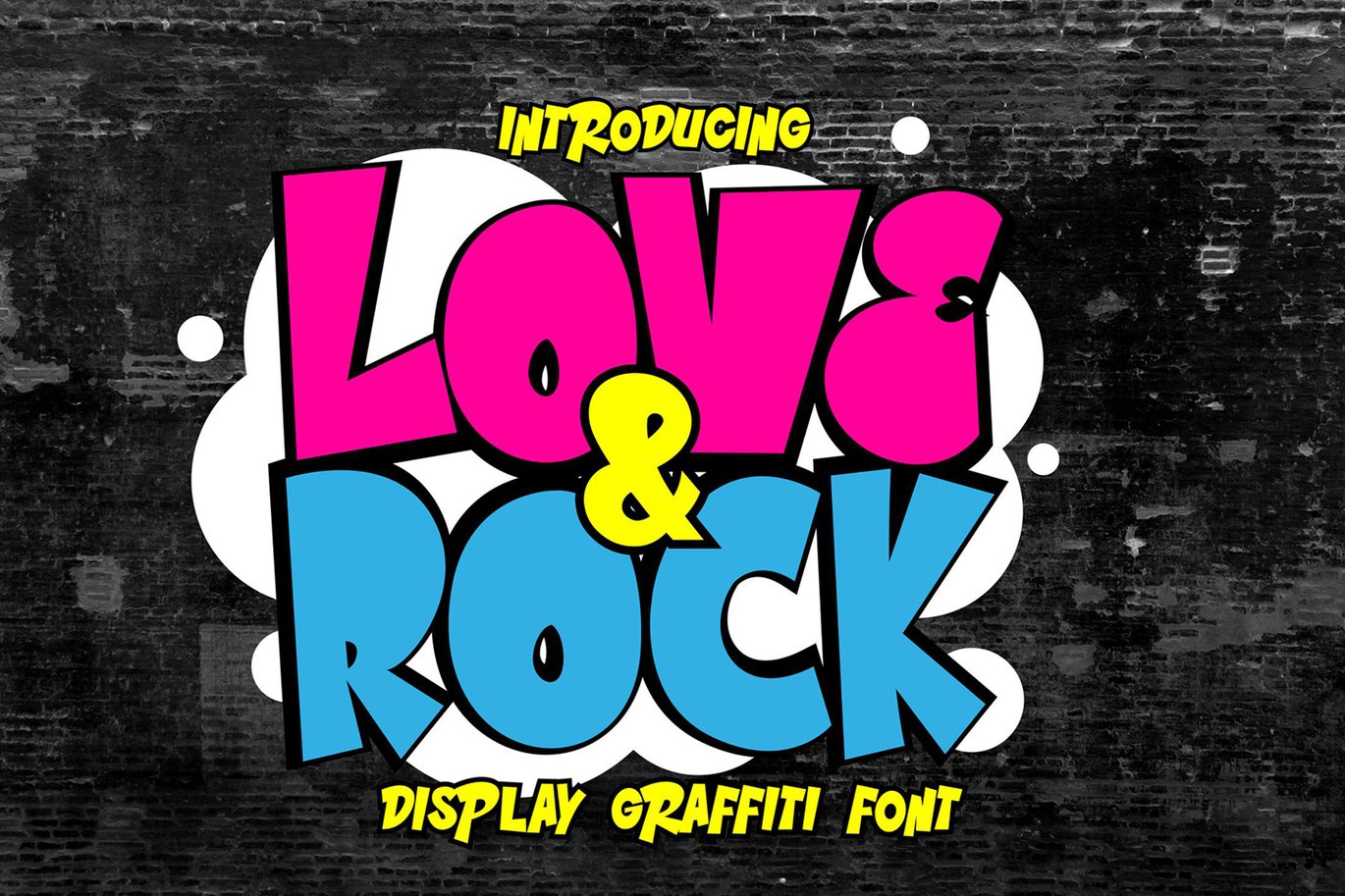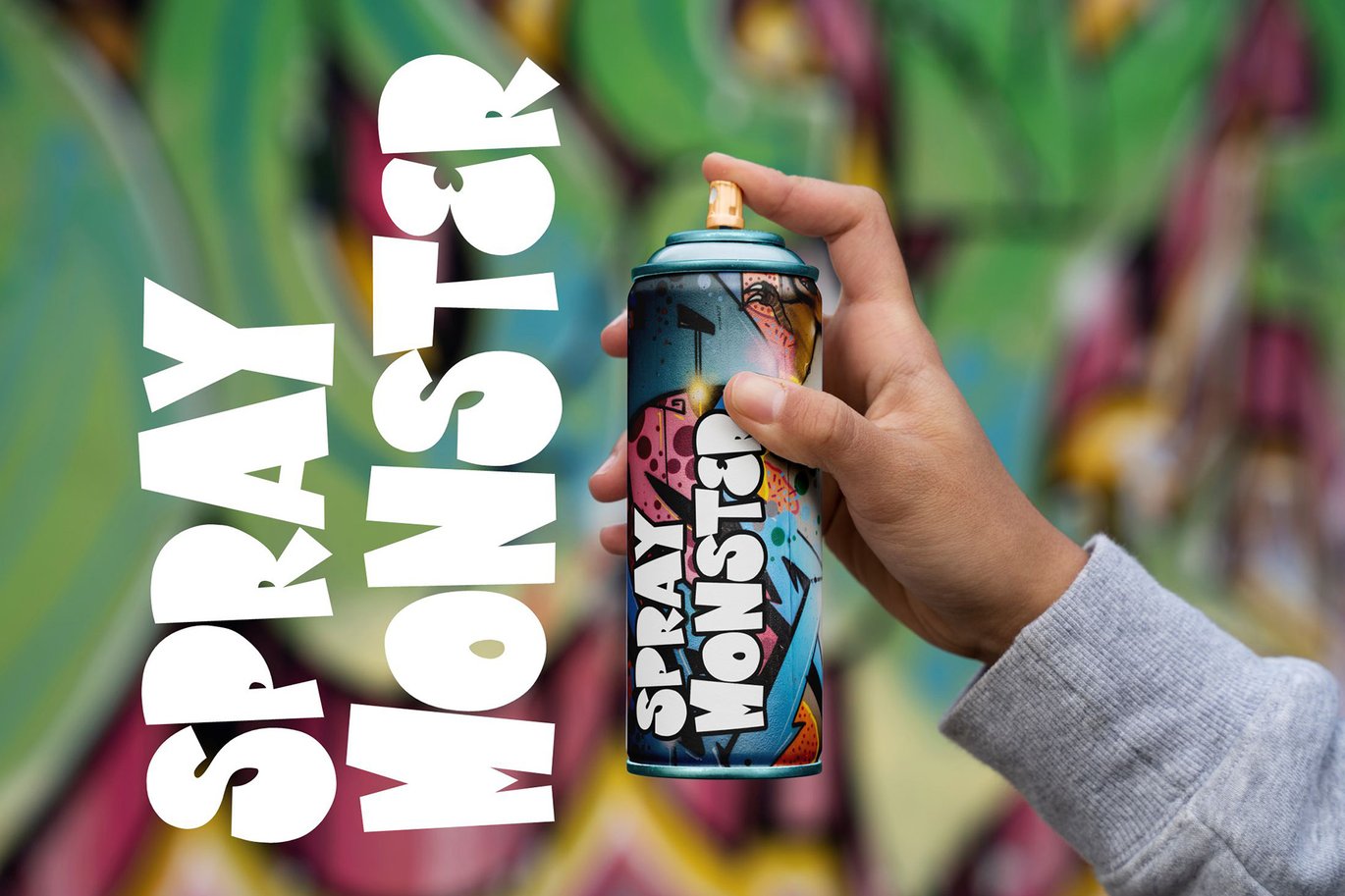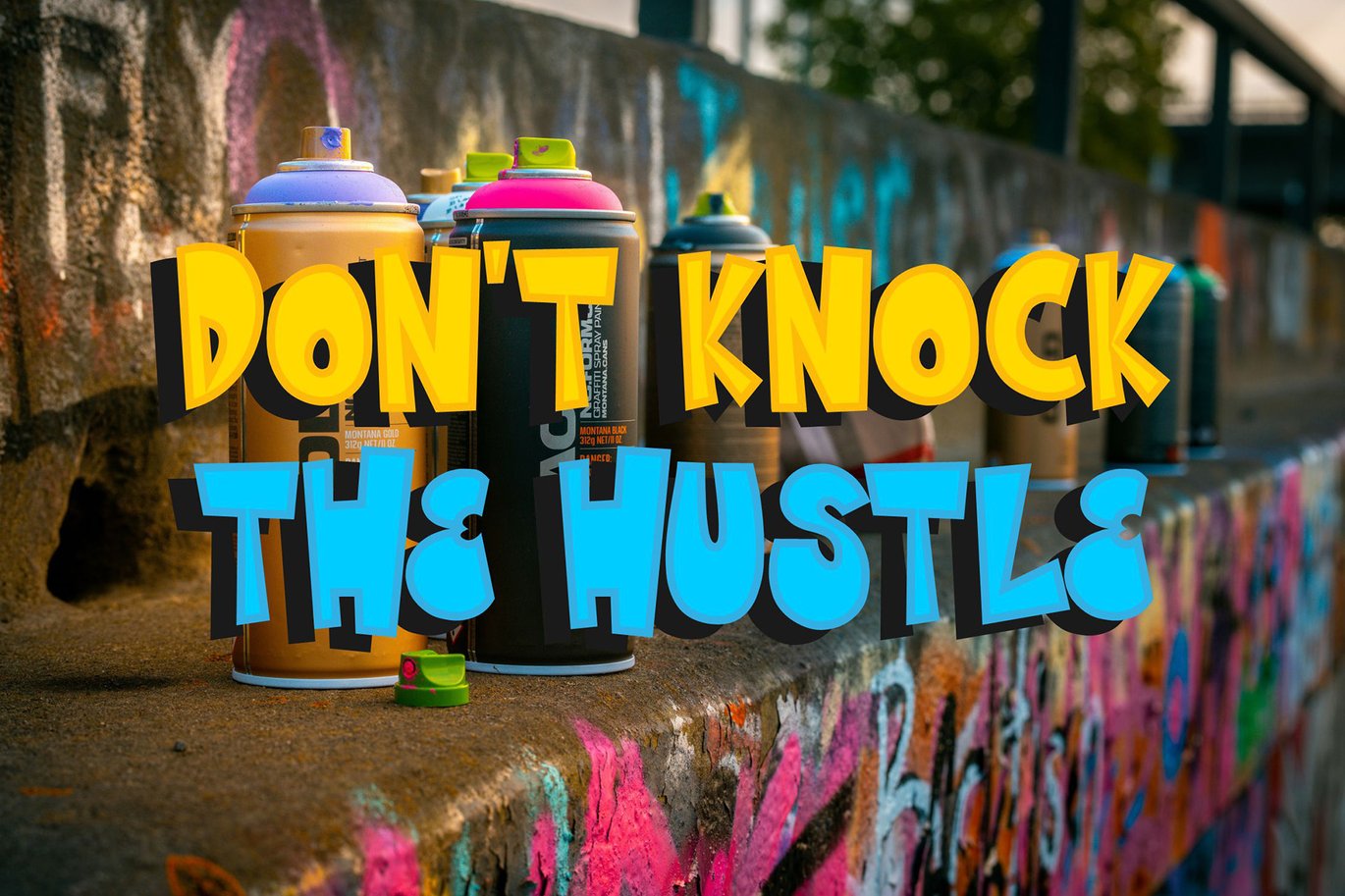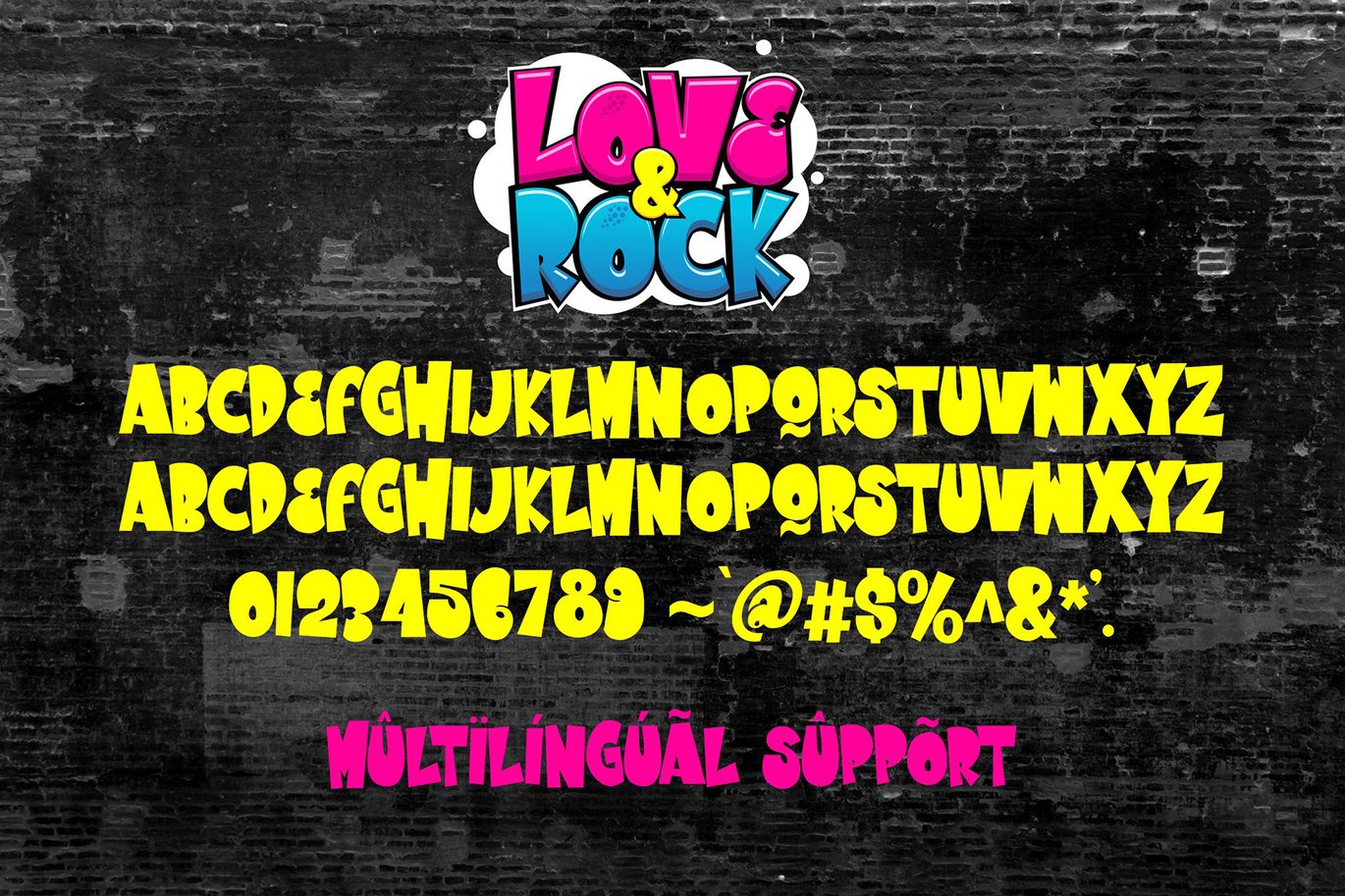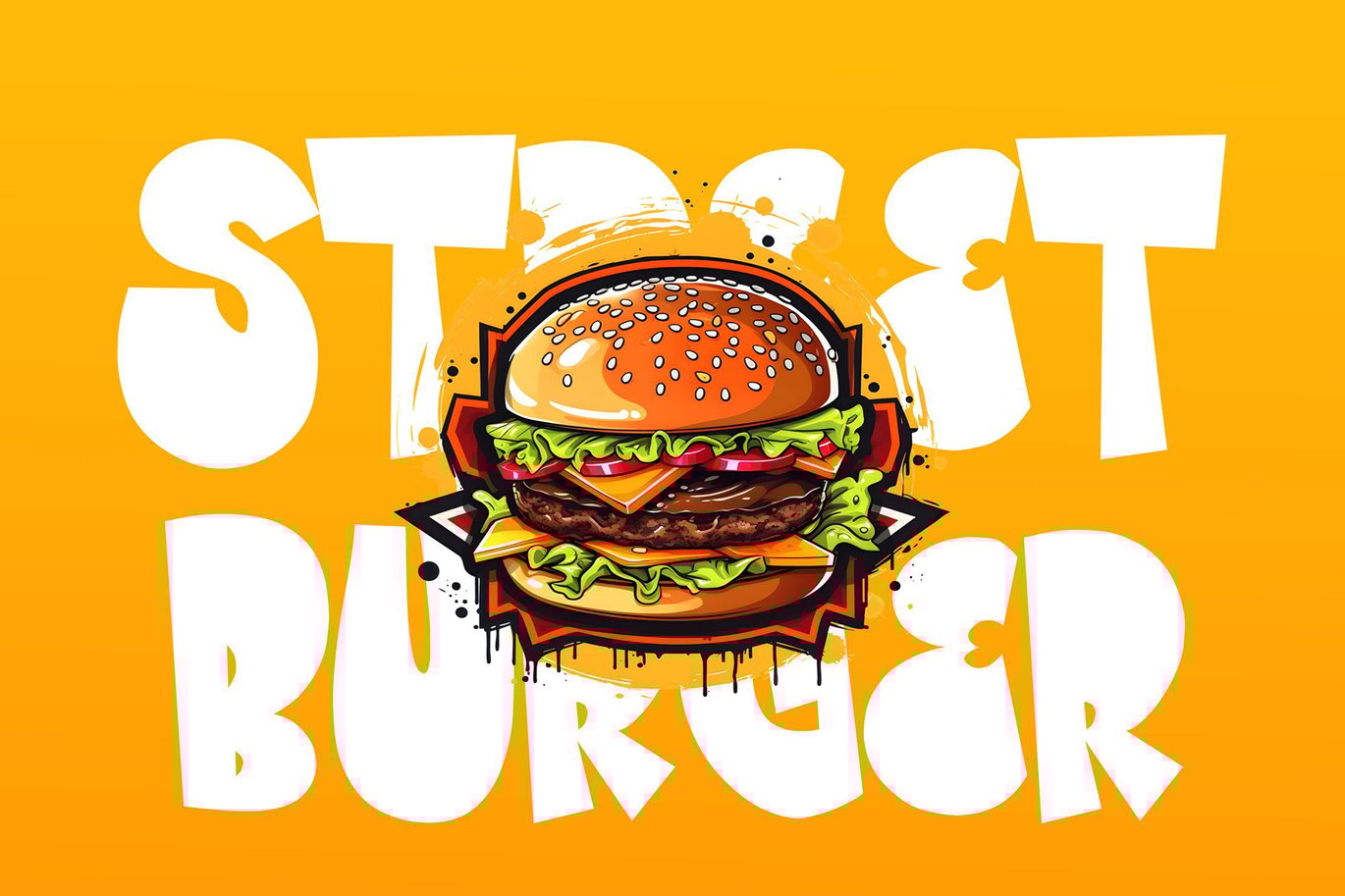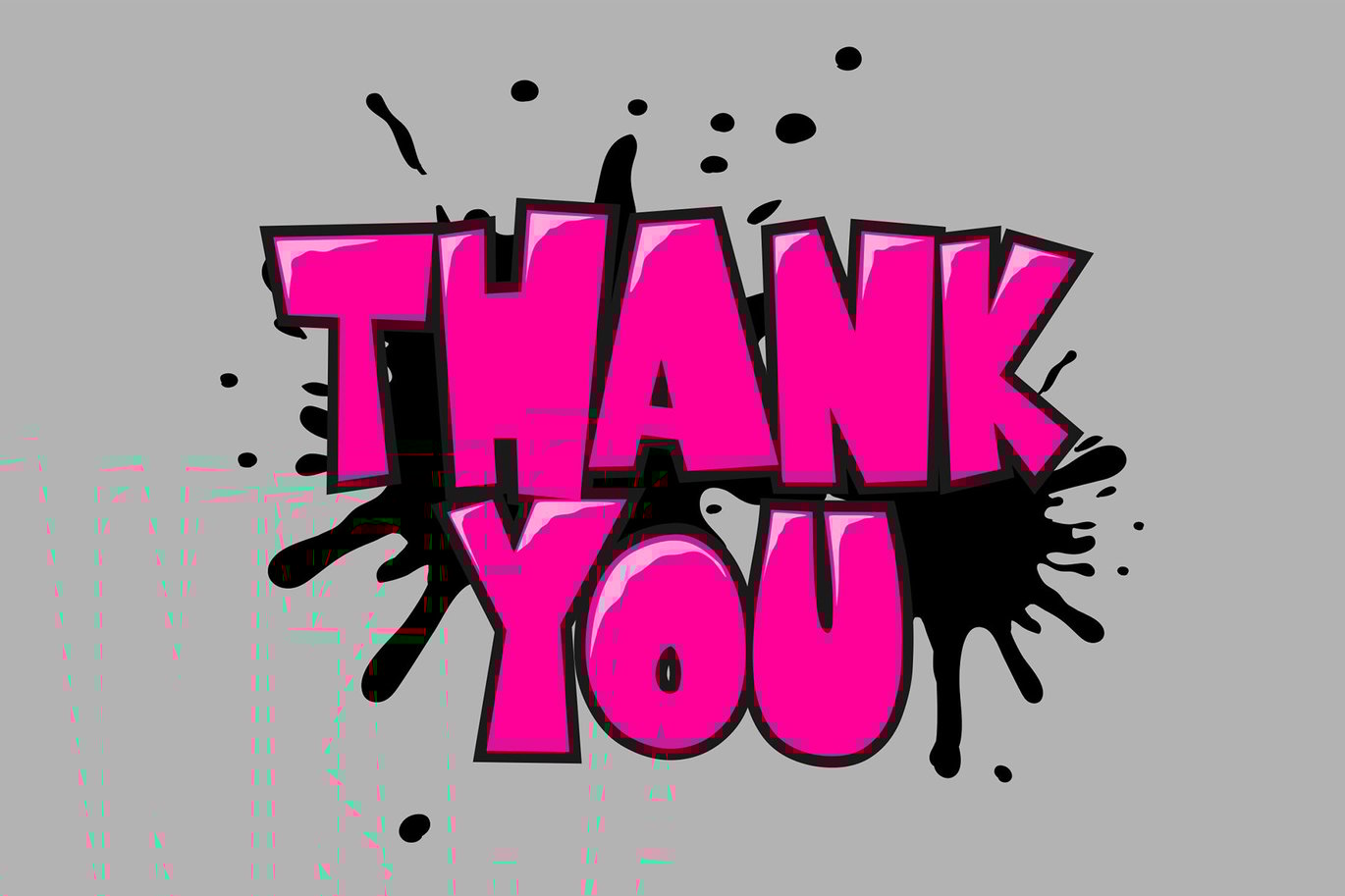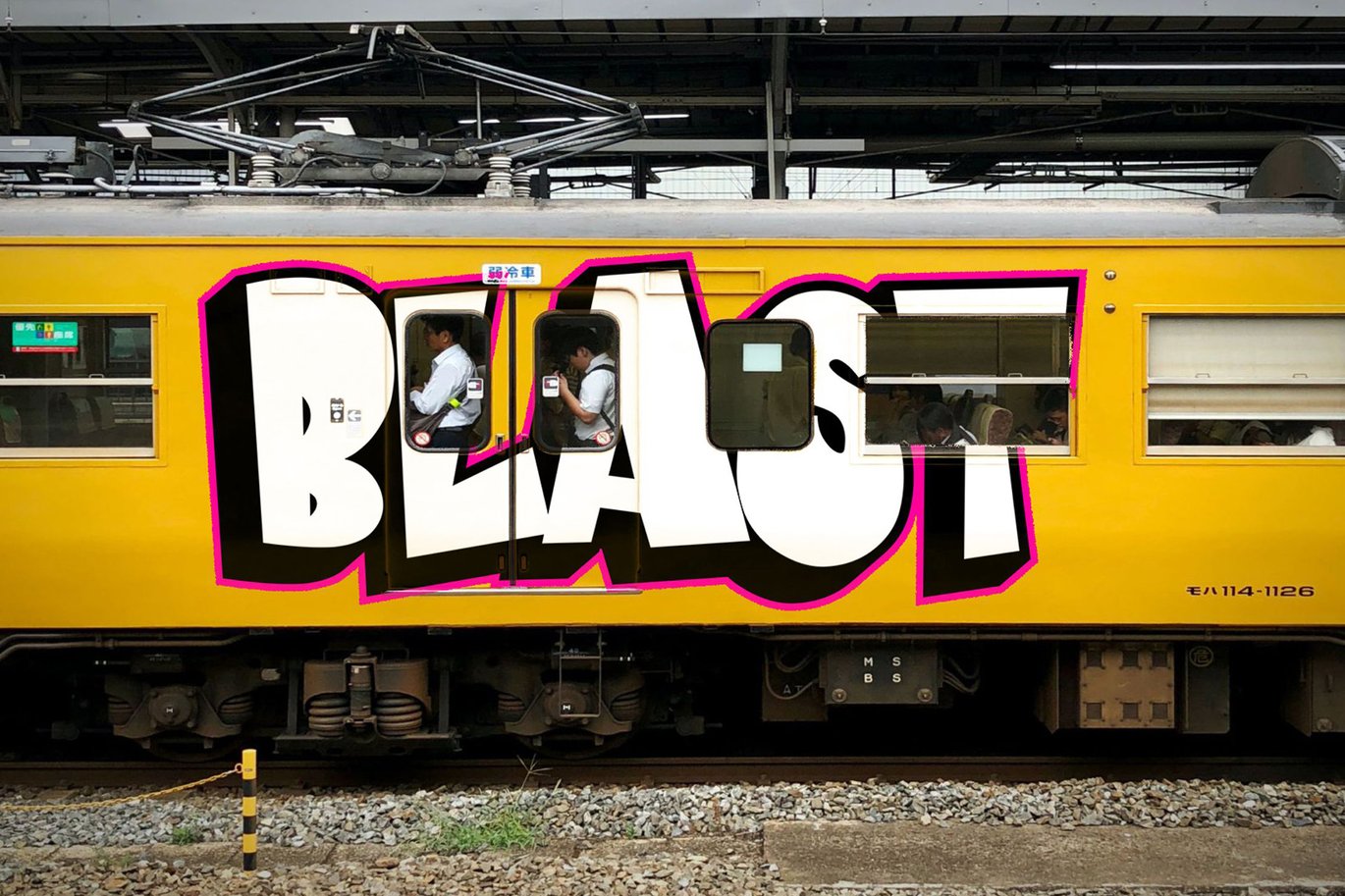
Love and Rock – Display Graffiti Font
Fuel your designs with the electrifying fusion of passion and rebellion using Love and Rock, the display graffiti font that rocks the visual spectrum. Beyond just a font, Love and Rock is a sonic boom of creativity, where each letter becomes a rebellious note in the symphony of love and edgy street style.
Crafted with graffiti’s gritty precision and a rockstar’s attitude, every stroke in Love and Rock resonates with the unapologetic spirit of both love and rebellion. Whether you’re designing for concert posters, album covers, or any project that demands a bold, expressive aesthetic, this font ensures your words become a visual anthem, leaving an indelible mark on the canvas of contemporary design. Love and Rock isn’t just a font; it’s a visual amplifier, turning your creations into a dynamic expression of passion and rebellion. Elevate your designs with the authentic and rebellious allure of Love and Rock – because in the world of display graffiti fonts, this one rocks with unrivaled intensity!